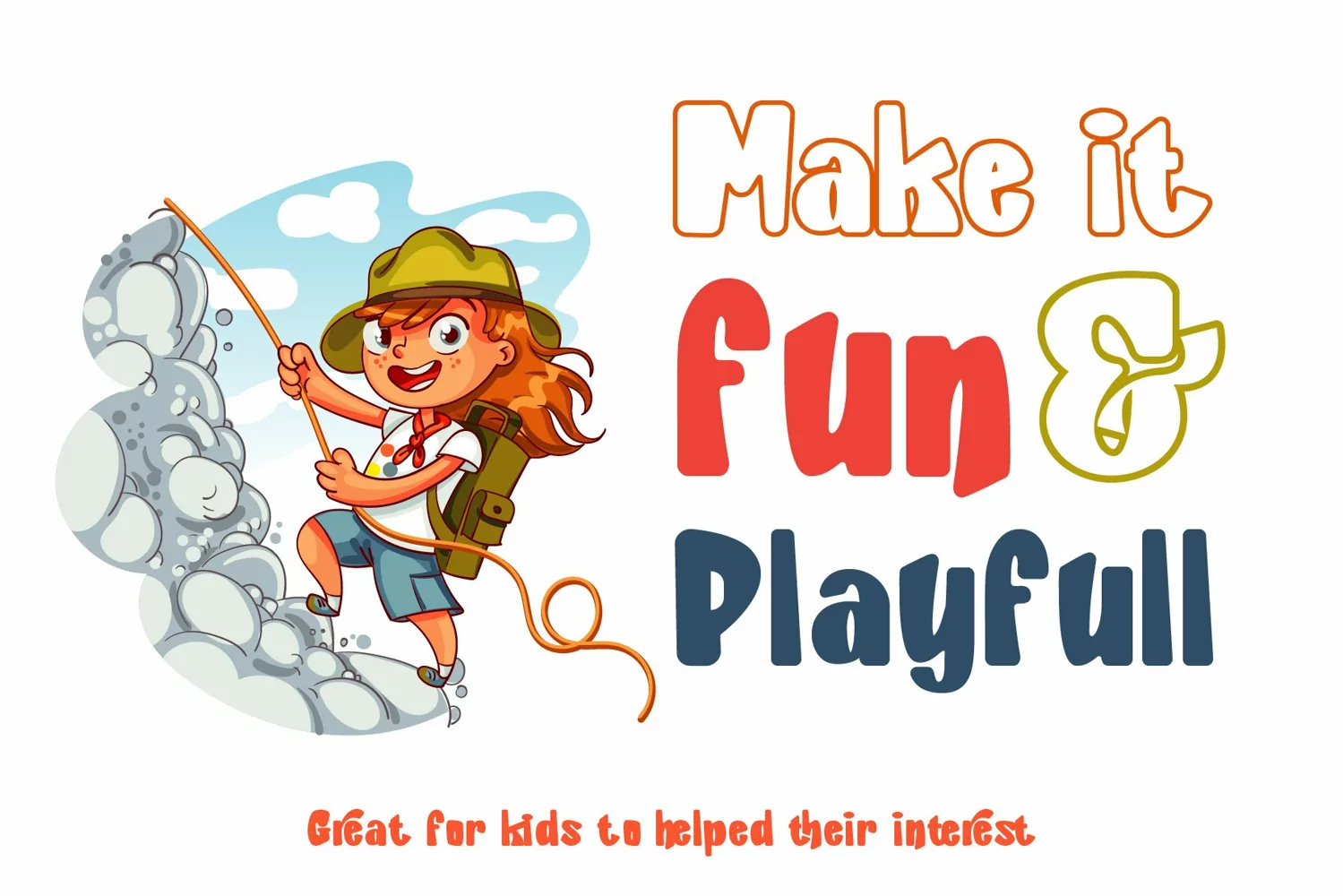
Introducing "Silly Kids", a Children inspired typeface. Really bring good statement & helped kids to build their interest.
This font is very easy to use with +70 Ligatures, no need tricky button, just type & it will automatically changed. It also PUA encoded & powered with opentype feature.
Silly Kids typeface is very unique and easy to apply to any media; t-shirts, books, brochure, flyer, posters, sign boards, and social media needs.